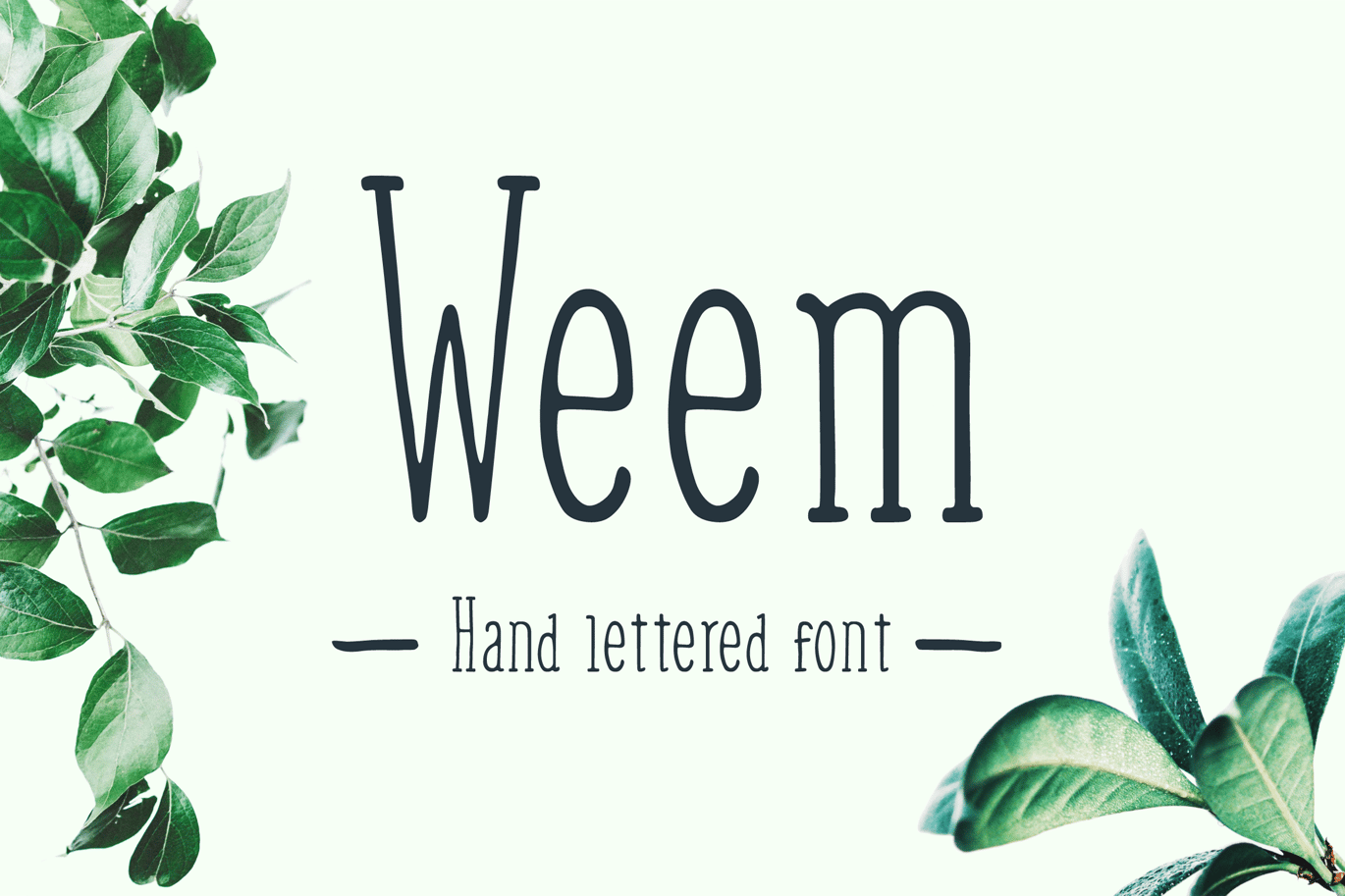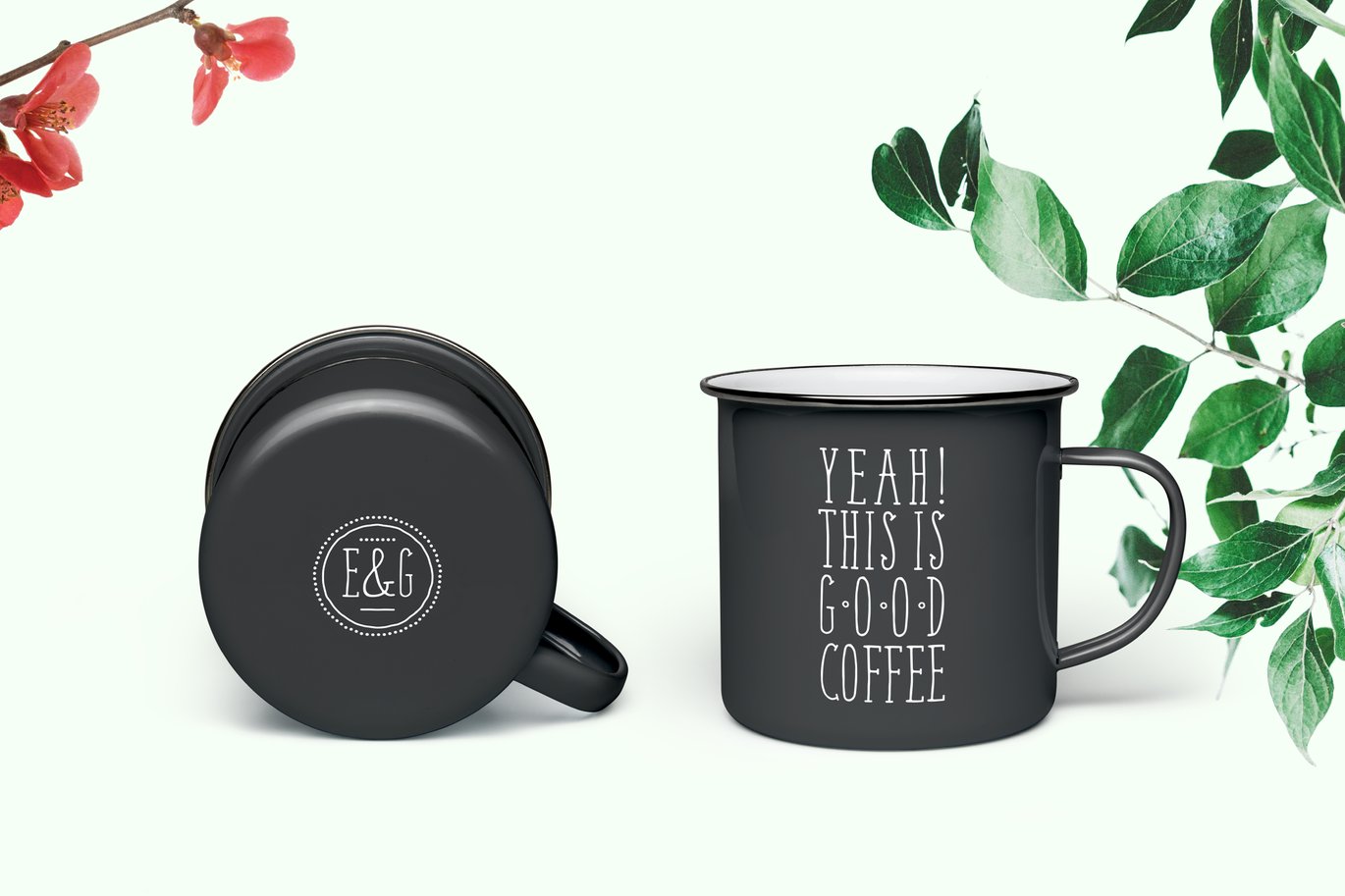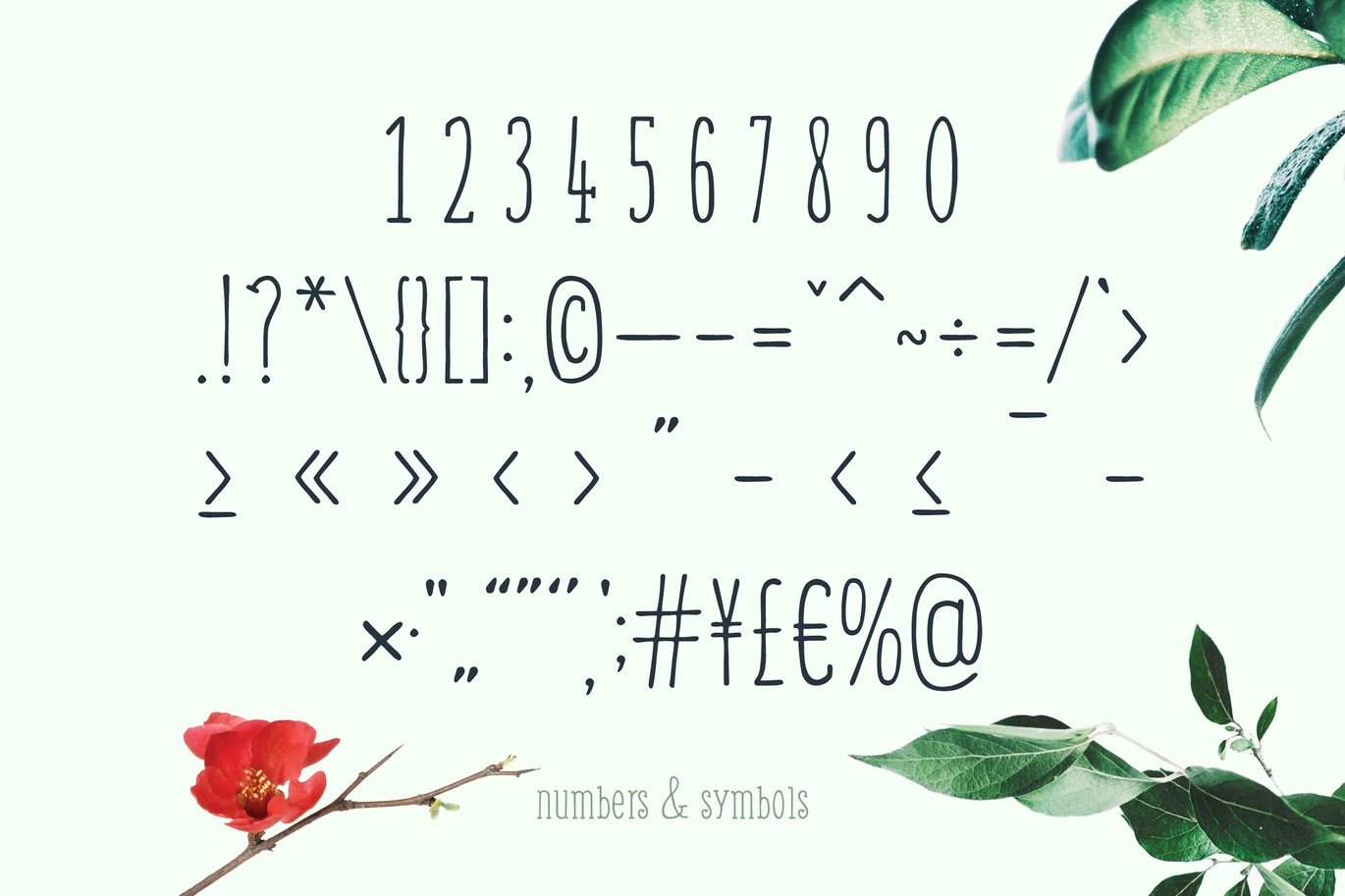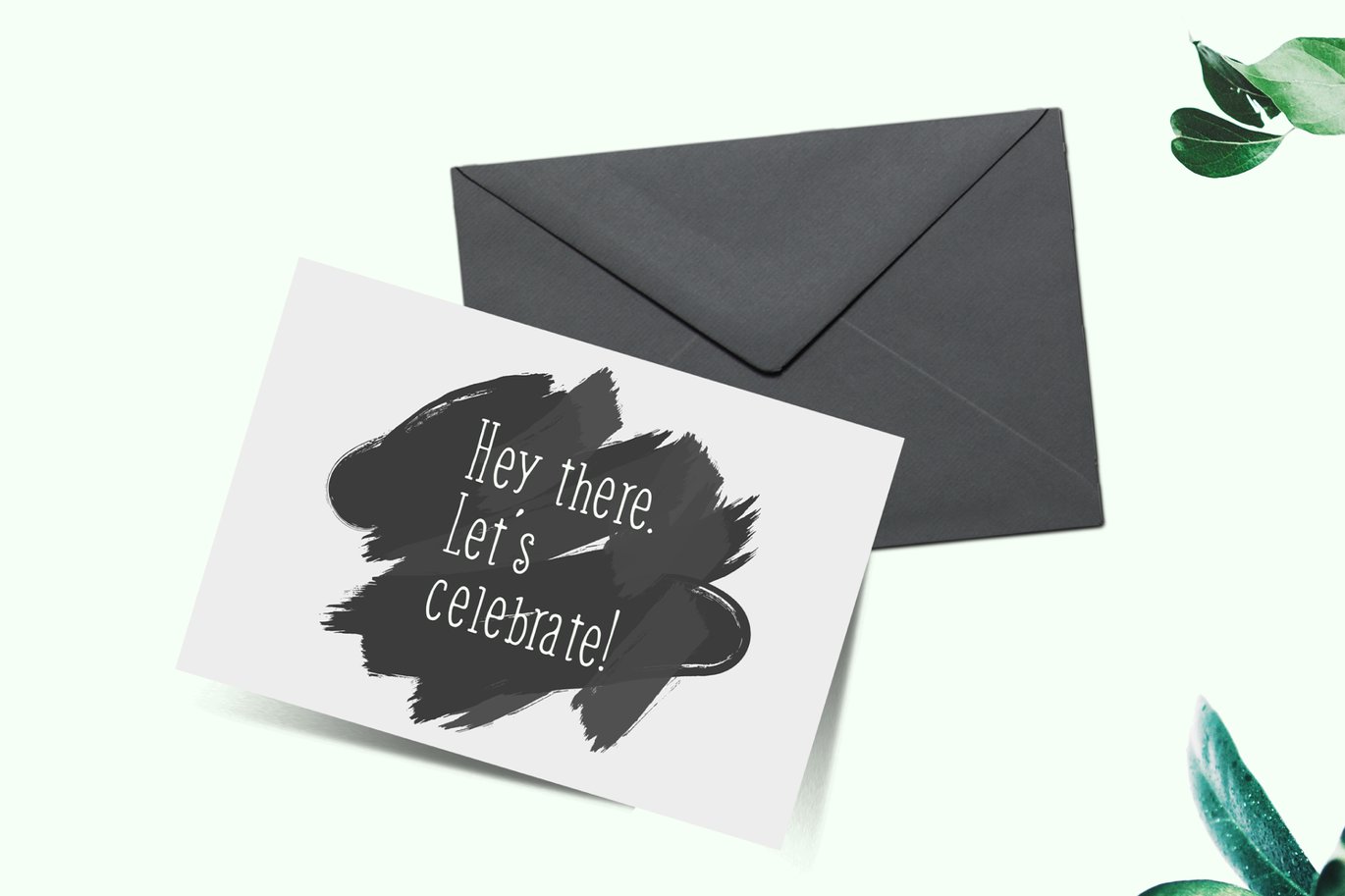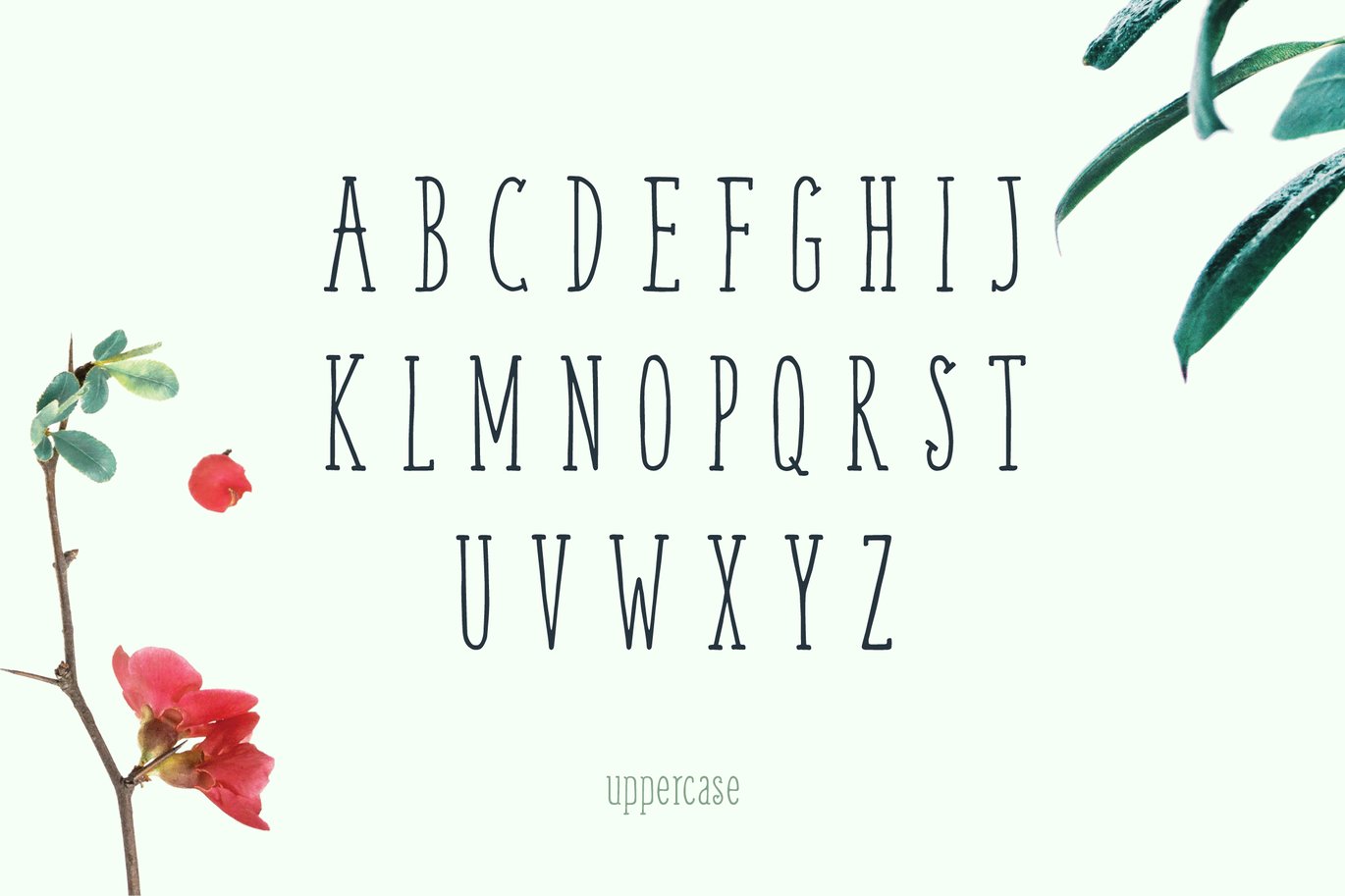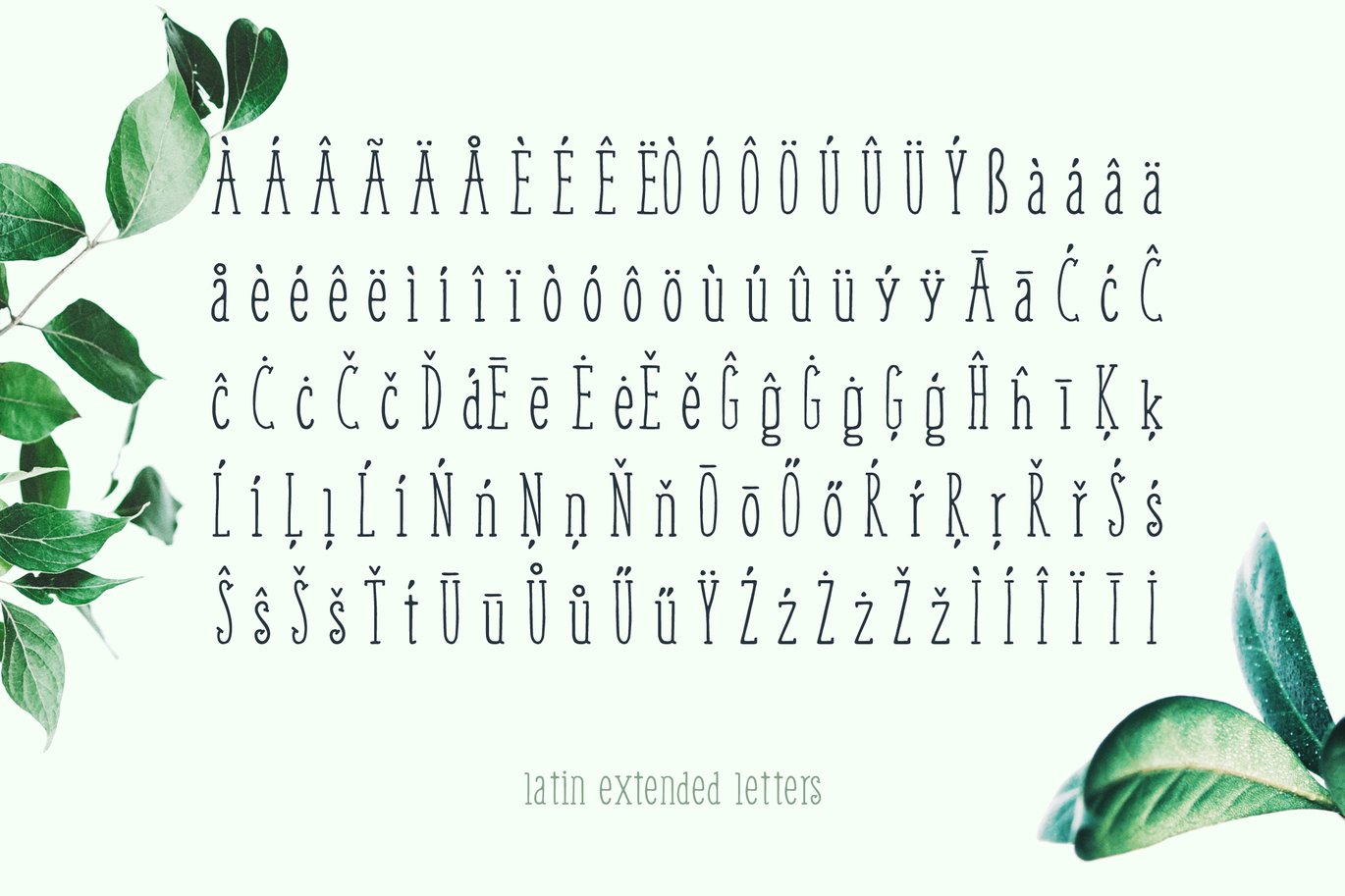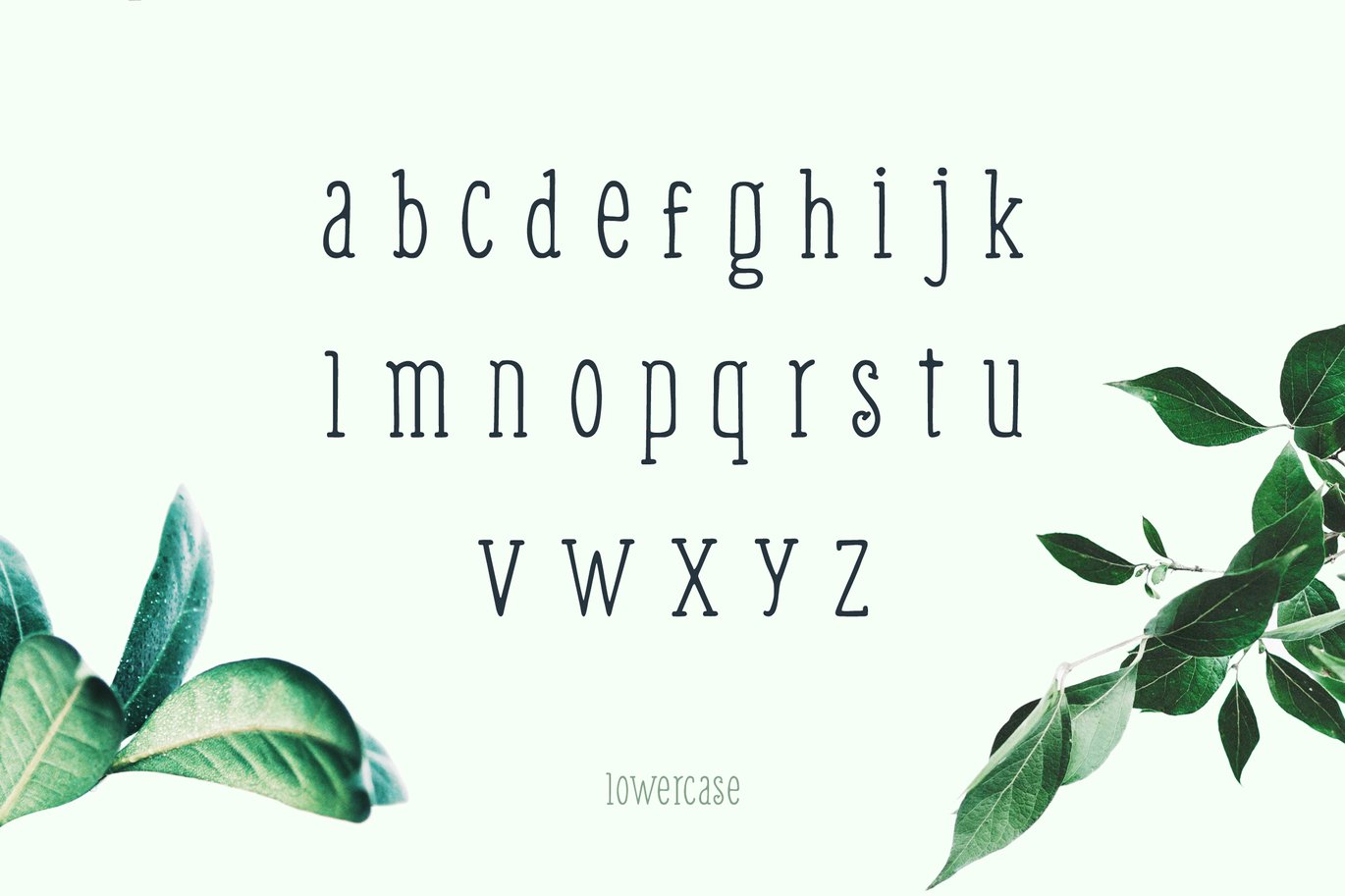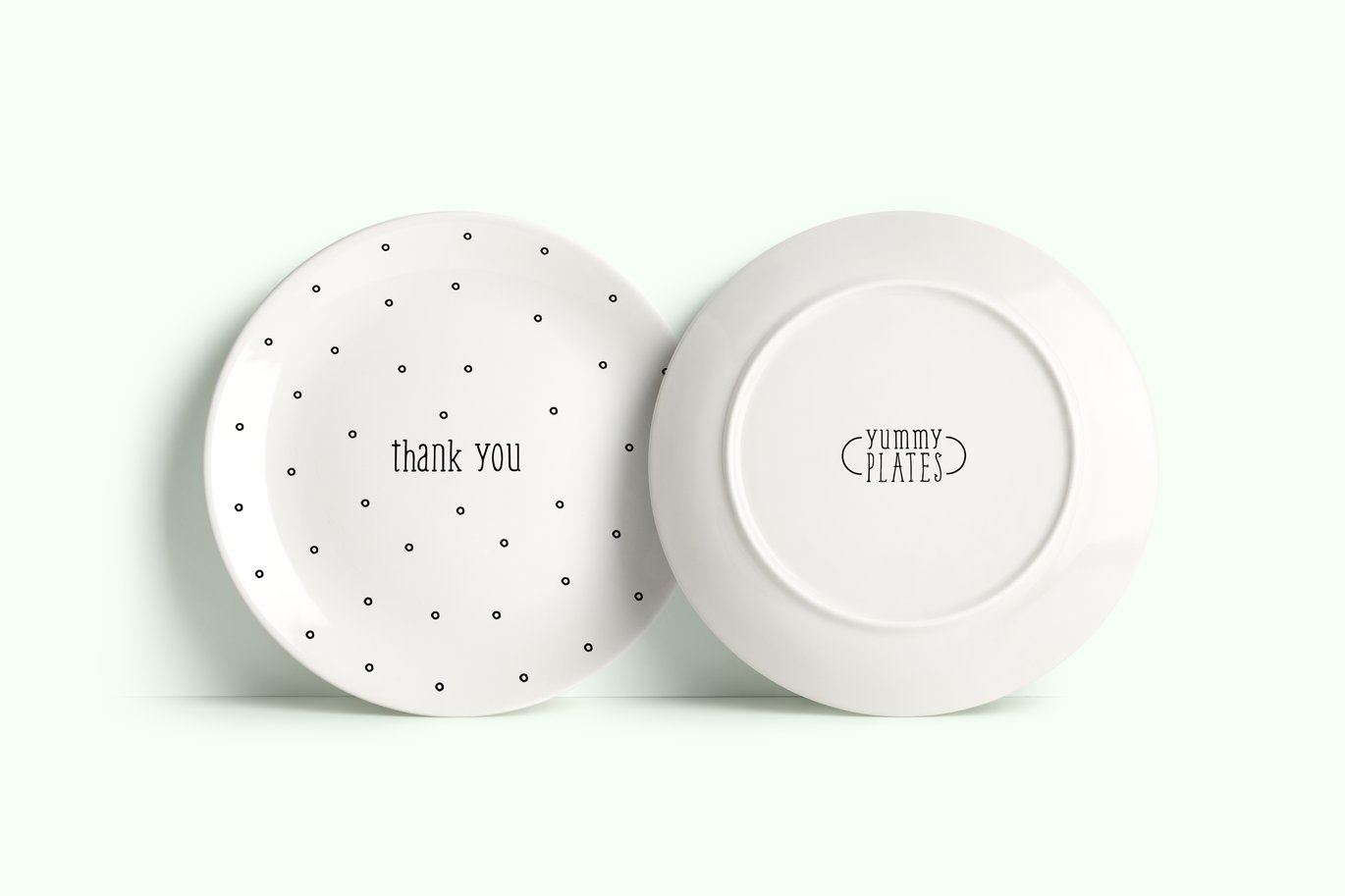
Weem Hand Lettered Font
Weem is a serif hand lettered font, it’s sketchy but with a strong bone underneath, ideal for playful and a bit serious designs – as for headlines and small text blocks! It will be great choice for branding projects, stationery and print products and for lot of other great things you can imagine!
Uppercase, lowercase and Latin extended letters, numbers, symbols included.